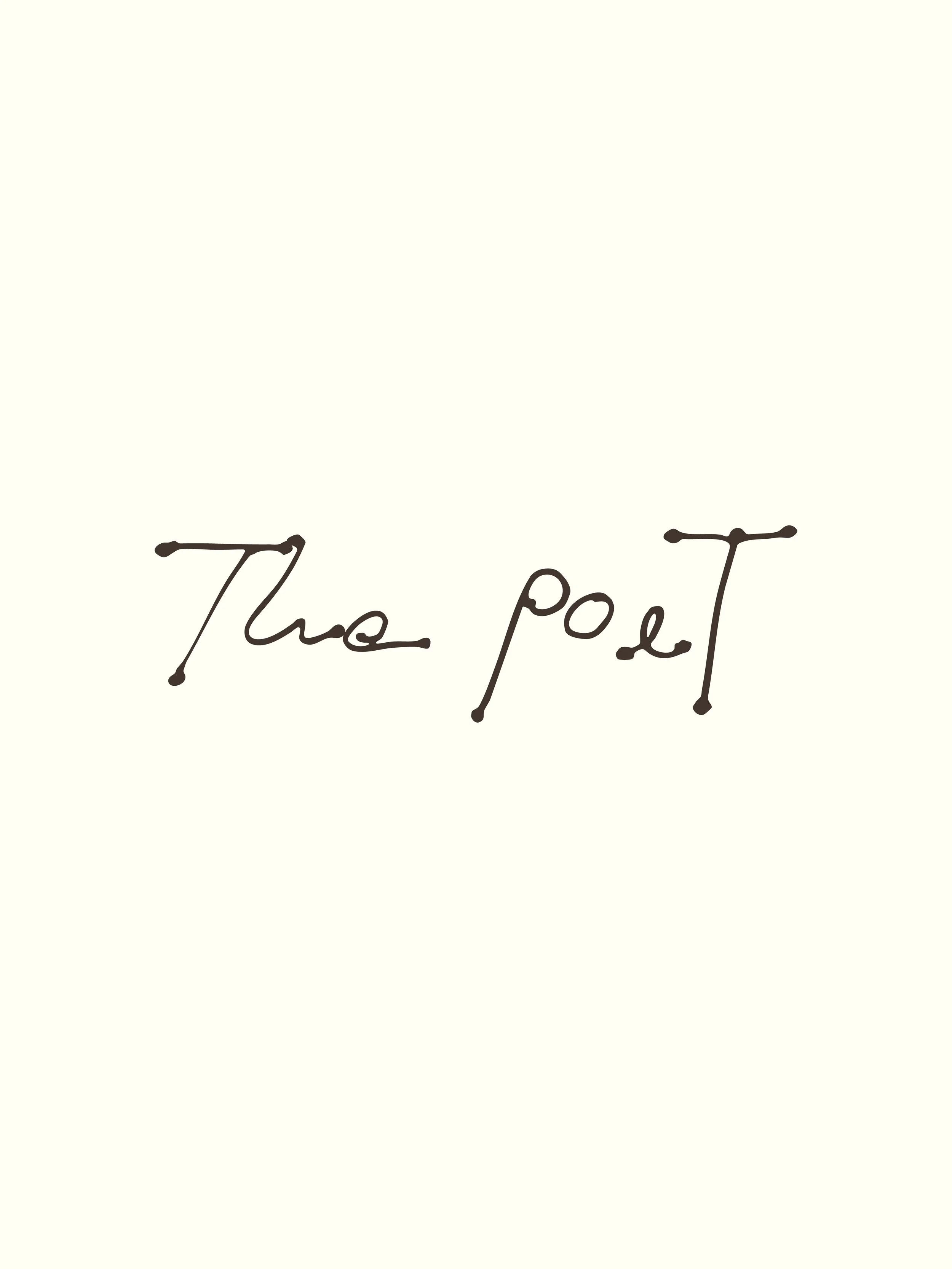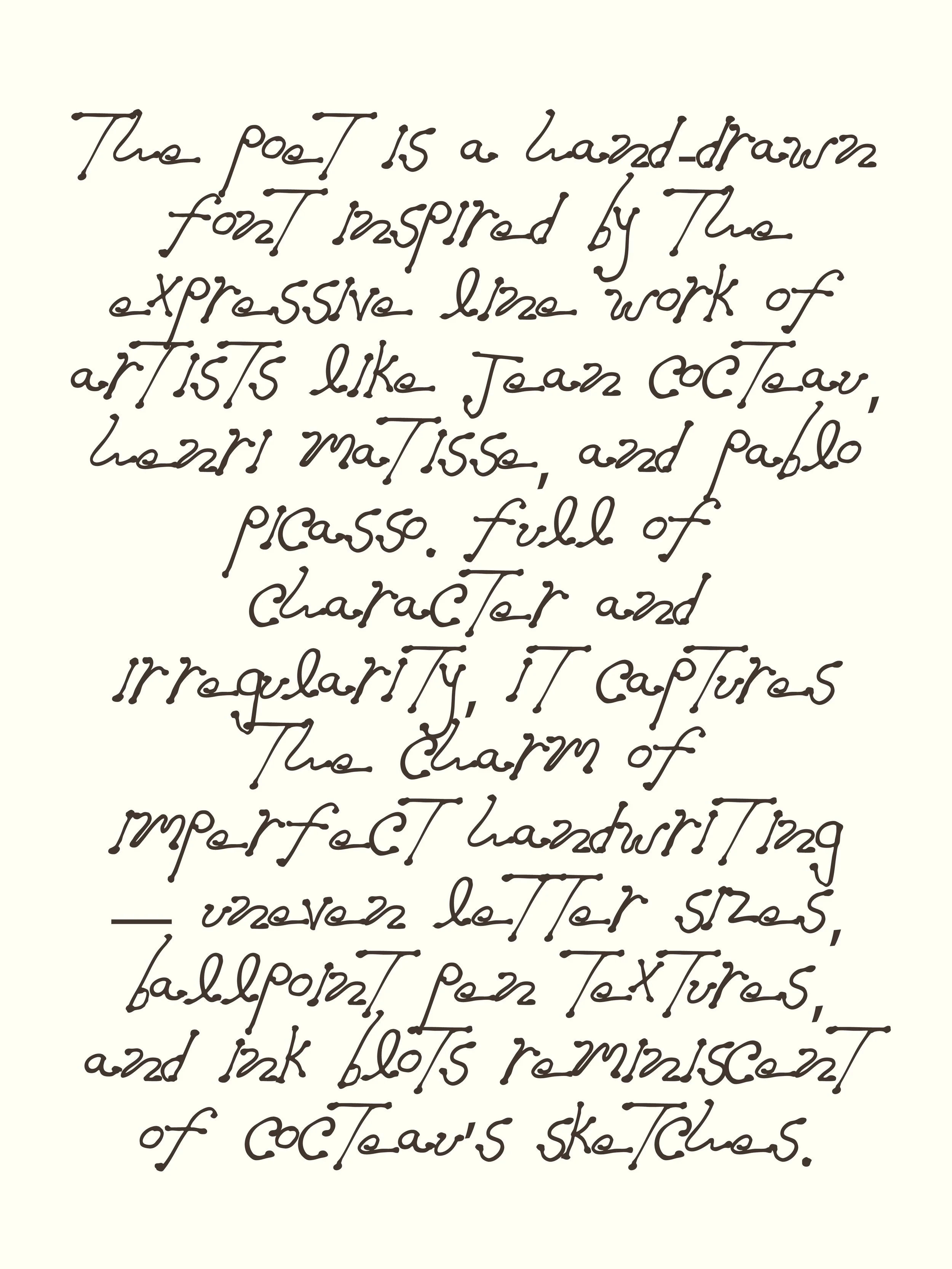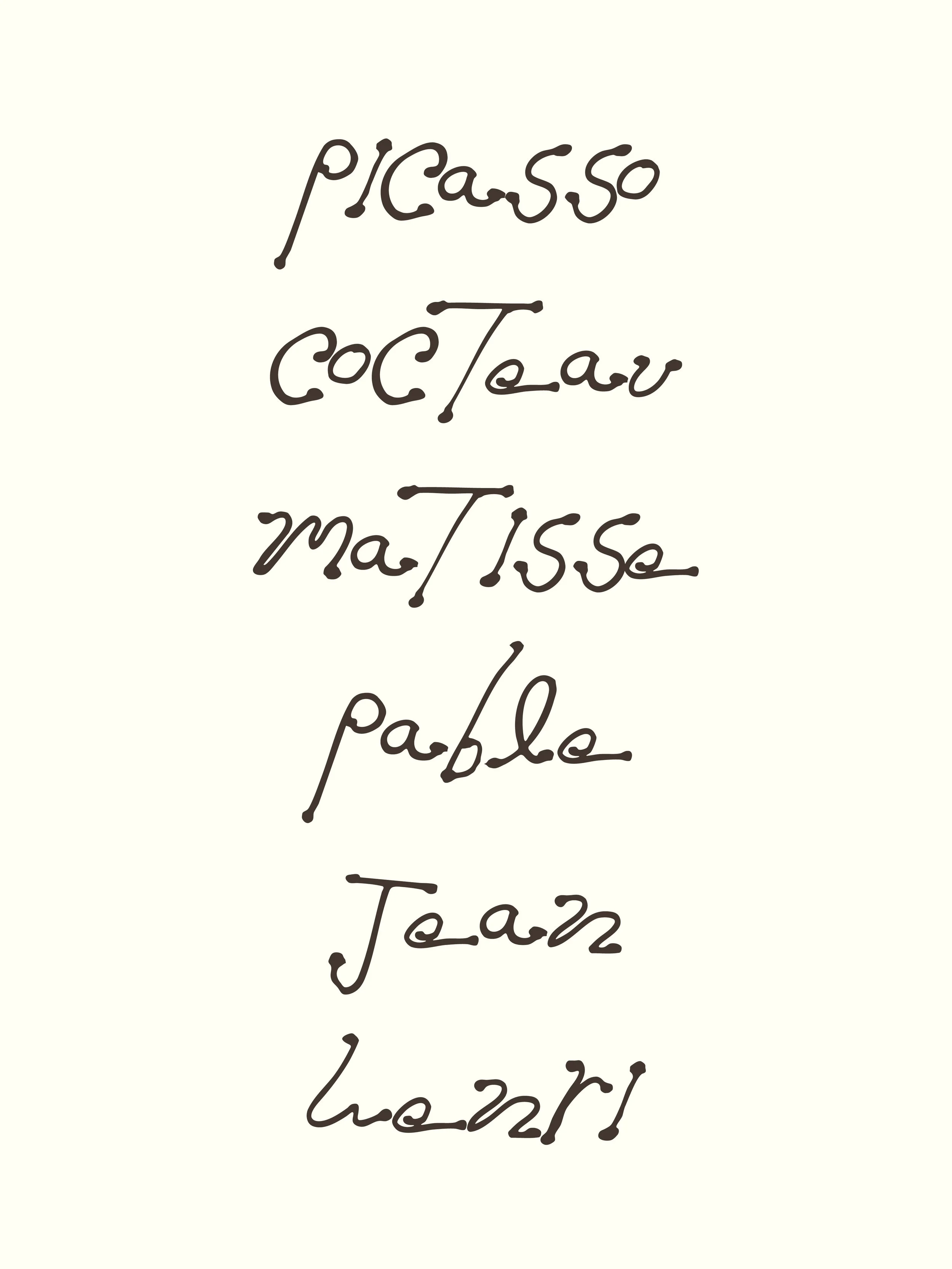
The Poet | Hand Drawn Font
The Poet is a hand-drawn font that channels the spirit of modernist masters. Loose, irregular, and full of personality, it celebrates the quirks of handwriting — uneven letterforms, inky textures, and spontaneous marks that feel lifted straight from an artist’s sketchbook.
Rather than polished perfection, The Poet offers raw expression. Its off-balance shapes and imperfect flow give it a deeply human quality, perfect for projects that embrace individuality and creativity. Whether you’re designing restaurant branding, menus, bar logos, or adding a handcrafted edge to your artwork, The Poet carries the mood of artistic freedom.
Its irregularity also makes it an ideal starting point for custom wordmarks — a font that invites you to experiment, play, and push your designs further
Bring the spirit of the studio into your design — The Poet is imperfect, expressive, and made for projects that want to feel truly hand-crafted.